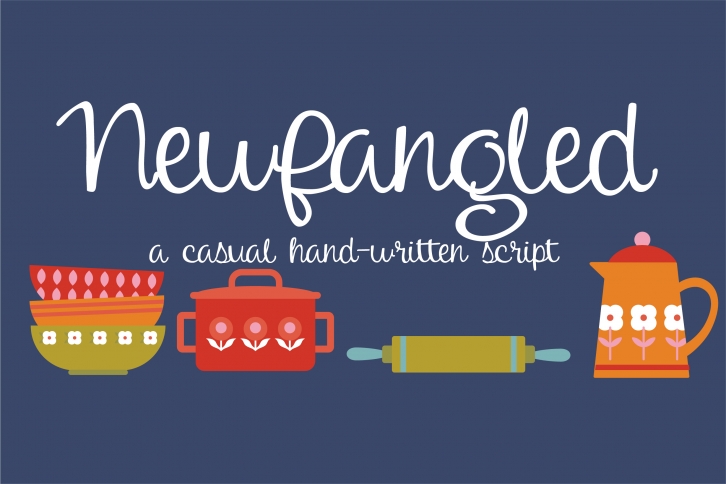
PN Newfangled is a trendy and unique font with an authentic style. It was designed by Illustration Ink and it's a great choice for creative people who need such a font. It was released on July 1, 2018 and the file size is 10.89 MB. PN Newfangled will add an organic vibe to any design idea!